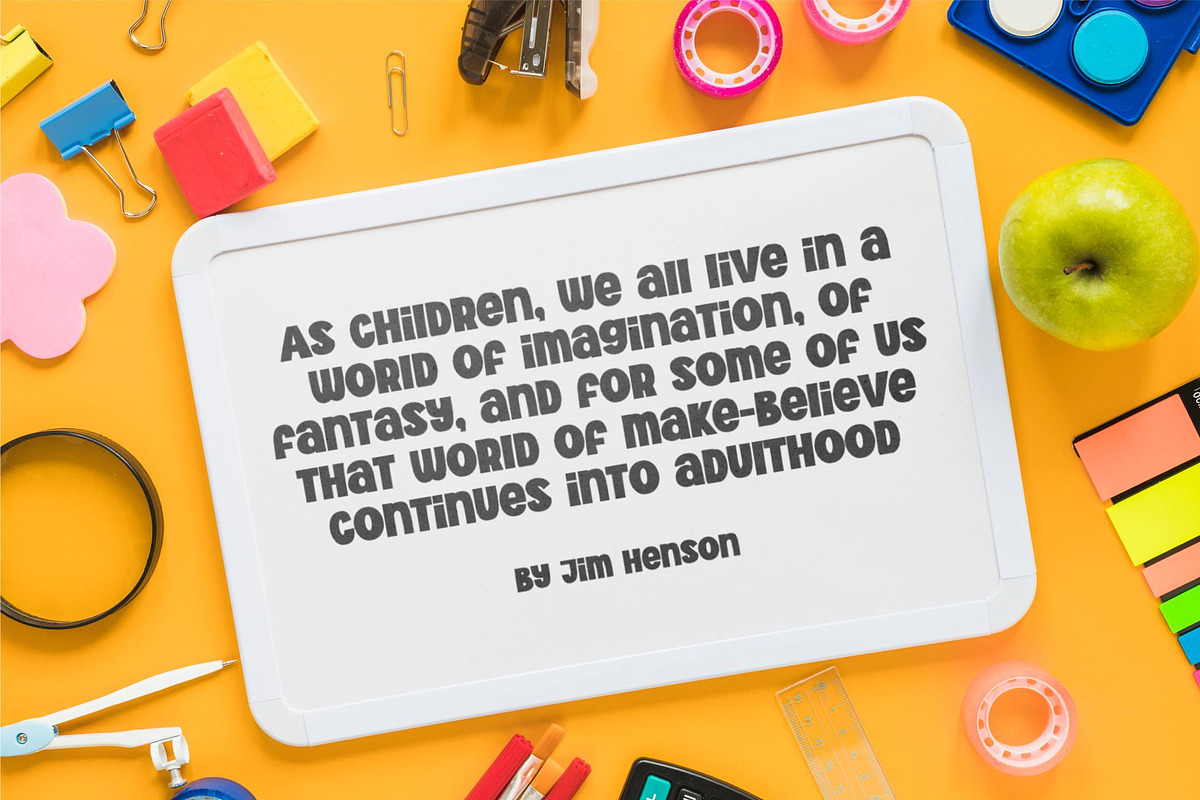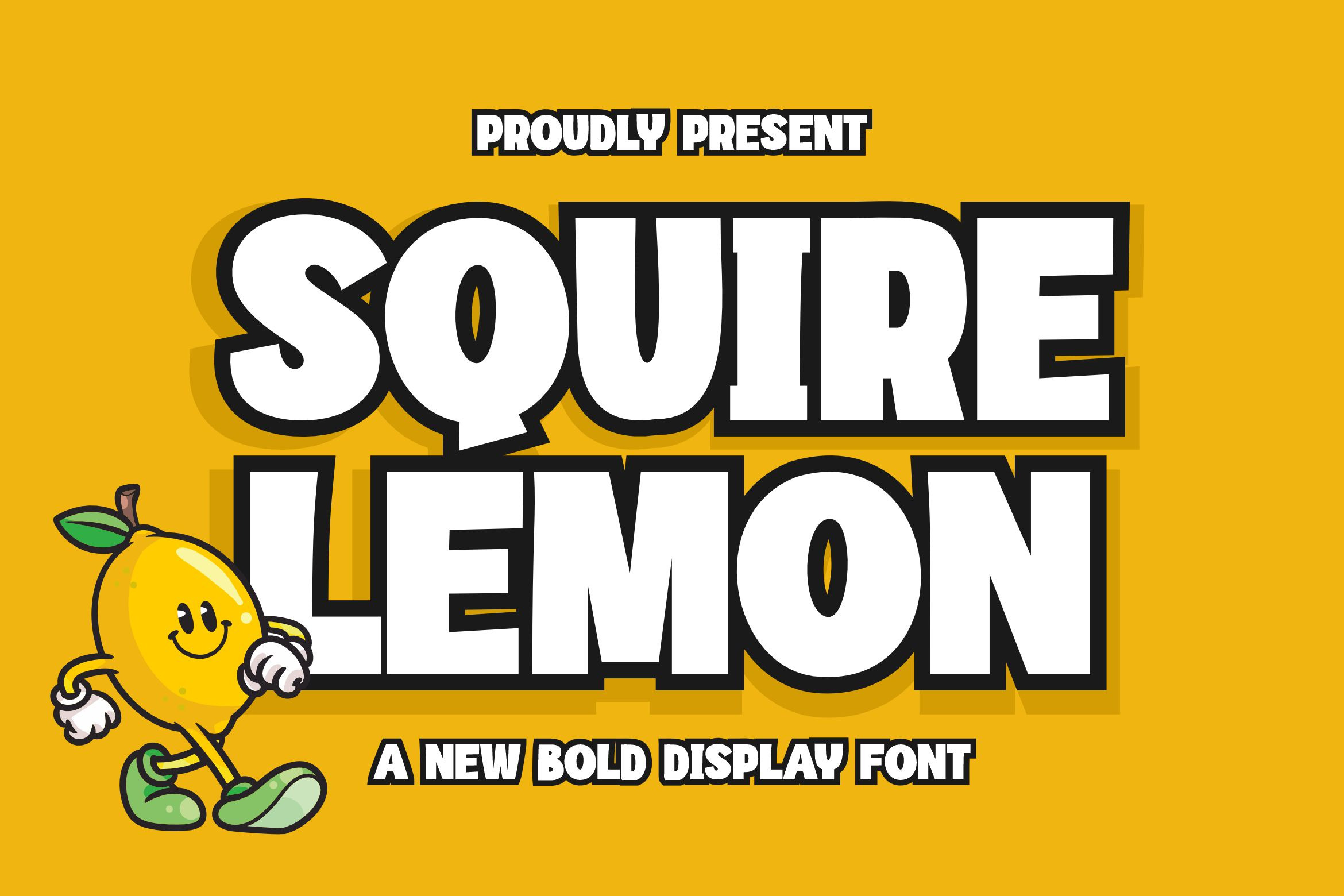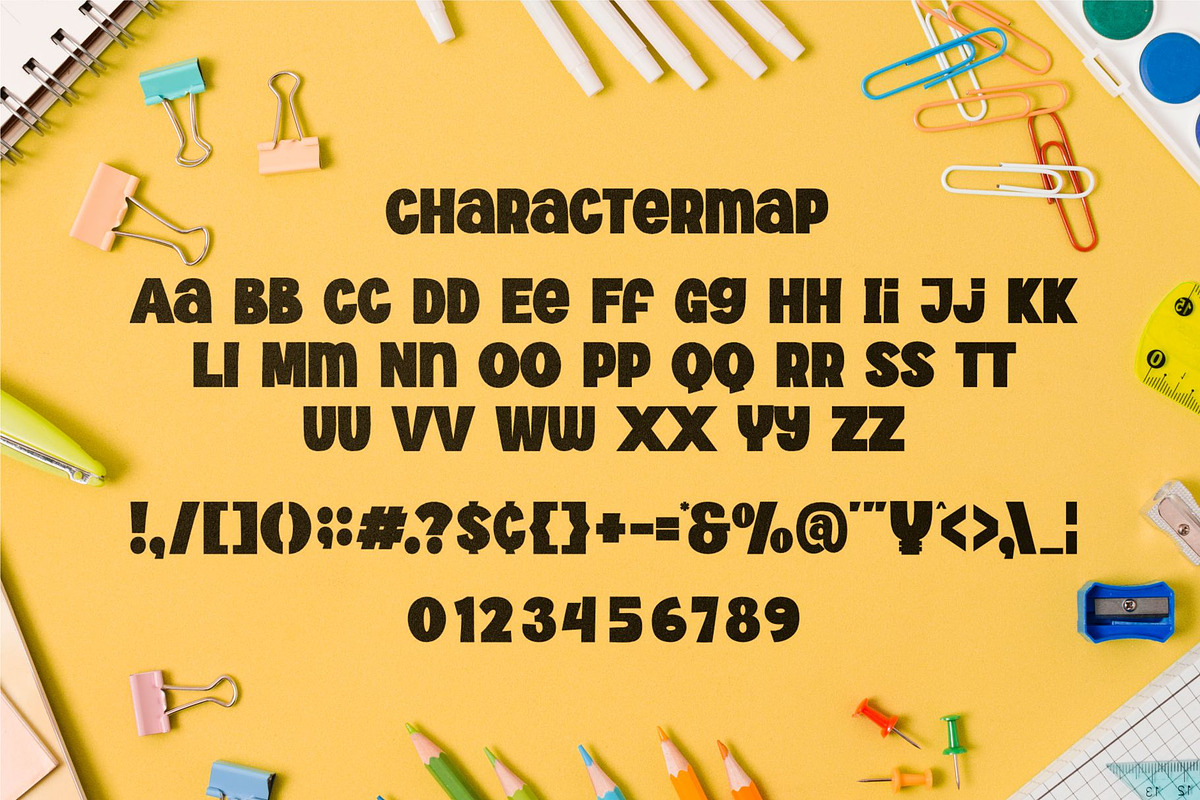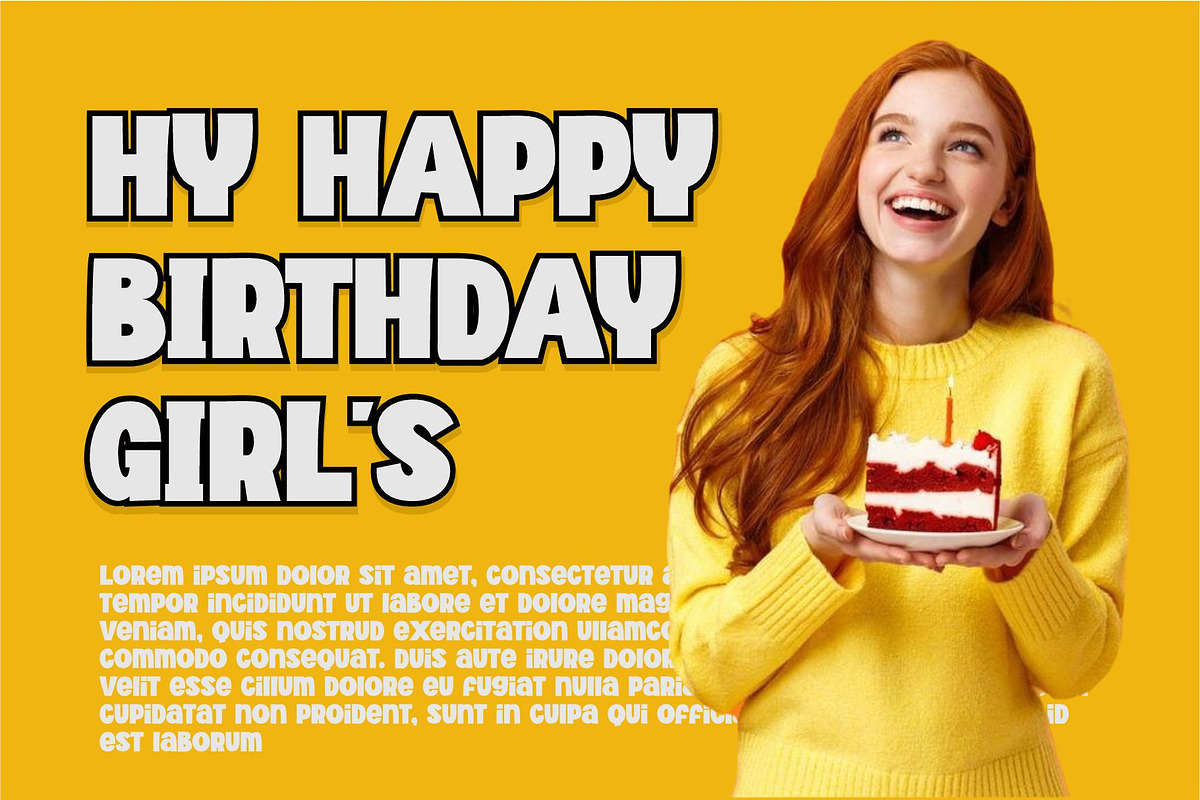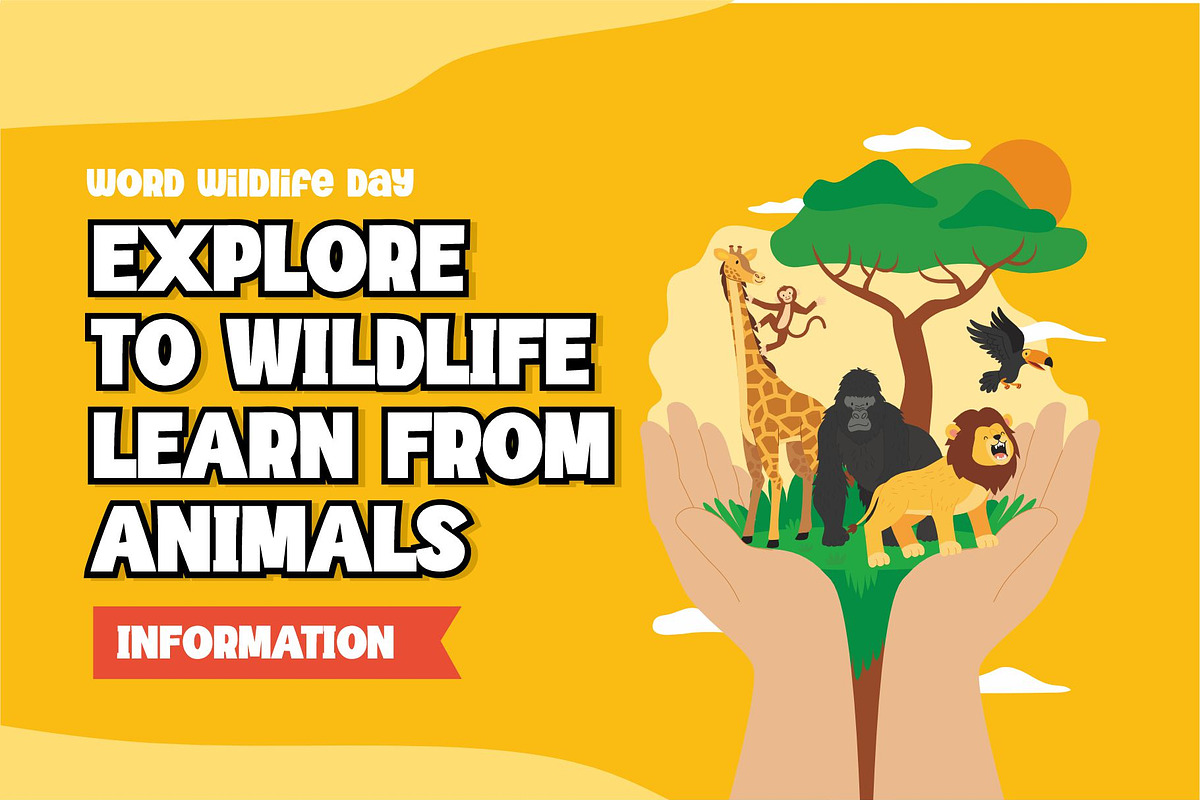
Squire Lemon || Bold Display Font
Introducing Squire Lemon - An bold modern sans serif with ton of stylistic alternates to choose. Its clean and minimalistic works wonderfully on its own for logos, headlines, posters, packaging and many more! And with Three different weights to choose, your option to create more unique and versatile design is a lot wider. Have fun and create more.. Your Imagination only your limit!!